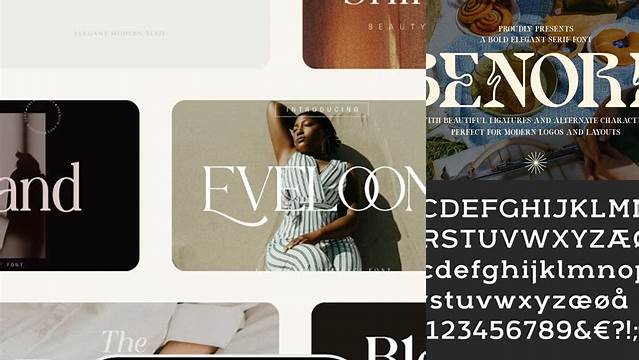
Free Serif Fonts: Download Elegant Fonts Now!
Hey guys! Are you on the hunt for a serif font free download? Well, you've stumbled upon the right place! Serif fonts, known for their classic and sophisticated look, are a staple in the world of design. They're those fonts with the little strokes, or “serifs,” at the ends of the letters – think Times New Roman or Garamond. They add a touch of elegance and readability that's perfect for a wide range of projects, from print to web. In this article, we'll dive deep into everything you need to know about finding and using these amazing fonts, ensuring you can snag a serif font free download without any hassle.
What are Serif Fonts and Why Use Them?
So, what exactly makes a serif font so special? Let's break it down. Serif fonts are characterized by those small decorative strokes at the end of each letter, like tiny feet. These little details aren't just for show; they actually play a big role in readability, especially for body text. The serifs help guide the eye across the page, making it easier to read long blocks of text. This is why you'll often see serif fonts used in books, newspapers, and magazines – they're designed for comfortable reading. But that's not all! Serif fonts also bring a certain level of sophistication and trustworthiness to your design. They're often associated with tradition, authority, and a sense of heritage. This makes them perfect for branding projects where you want to convey these qualities. When choosing a font, it's essential to consider your project's purpose. If you're working on a formal document, a classic serif font might be the perfect choice. If you're designing a website, the use of serif fonts can contribute to the overall aesthetic and usability of the site, enhancing the reading experience for your visitors. Finding a serif font free download gives you tons of options to bring elegance into your work!
But, here's the kicker: using the right serif font can elevate your design game. Imagine a book cover that's bold and beautiful, a website that feels credible and engaging, or a poster that grabs your attention instantly. The right serif font can do all of these things! On the other hand, a poorly chosen font can make your design look cluttered, unprofessional, or even hard to read. That's why it's super important to know your options and understand how different serif fonts can change the tone of your project. This is where our guide on serif font free download really shines; we'll show you how to pick the perfect font for any project.
Where to Find a Reliable Serif Font Free Download
Alright, now the exciting part: where to find a serif font free download? There are tons of websites out there offering free fonts, but not all of them are created equal. You want to make sure you're getting your fonts from a trustworthy source to avoid any nasty surprises, like malware or copyright issues. A good starting point is Google Fonts. Google Fonts is a library of open-source fonts, and it's a goldmine for designers. It's completely free to use, and you can easily download fonts or embed them directly into your website. Another great option is Font Squirrel, a website dedicated to finding high-quality, free fonts. They carefully curate their collection, so you know you're getting a great font when you download from them. They also offer a font identifier tool, which can be super handy if you see a font you like and want to find out what it is. Besides those, you can also check out websites like DaFont or 1001 Fonts. Just be sure to double-check the licensing terms before you download and use any font from these sources. They often have a wide variety of fonts, but some might only be free for personal use. Serif font free download is a good way to level up your projects!
Top Free Serif Fonts to Download Right Now!
Okay, let's get to the good stuff: top serif font free download options! Here are some of the best free serif fonts available, perfect for various design projects. You can find these fonts on the platforms we mentioned above, like Google Fonts and Font Squirrel.
- Lora: This is a well-balanced contemporary serif with a touch of elegance. It's great for body text and headings, making it super versatile for blogs, websites, and print materials. Lora is designed to look good on screens, so it's a solid choice for digital projects.
- Playfair Display: This font is all about the elegance. It's a high-contrast font with a classic look, and it's perfect for headlines, titles, and display text. This font will bring a touch of luxury to your designs. It is best used for headings and titles.
- Roboto Slab: It has a geometric design with a modern feel. It’s a great option for both headlines and body text, making it a flexible choice for different types of projects. It offers excellent readability in various sizes.
- Merriweather: Designed for readability, especially on screens. This font is perfect for long-form content and body text. It's a good all-around choice. It's designed to be legible, so it is an excellent option for readability.
These fonts are not just aesthetically pleasing, they are also designed with functionality in mind, ensuring they work seamlessly across different platforms and applications. You can use these fonts for a wide range of projects – from website design to creating beautiful print materials. Keep in mind that this is just a starting point. There are tons of amazing free serif fonts out there waiting to be discovered, so don't be afraid to explore and experiment! Finding a serif font free download that speaks to your creative vision is just a download away.
Tips for Using Serif Fonts Effectively
Alright, you've got your serif font free download, now what? Knowing how to use your font effectively is just as important as finding the right one. Let's cover some key tips to make your design shine.
- Consider Readability: Always prioritize readability, especially for body text. Make sure the font size is appropriate for the context and that the line height and letter spacing are comfortable for the reader. Testing your design on different devices will help you find the right balance.
Conclusion: Get Your Serif Font Free Download Today!
So, there you have it, folks! Everything you need to know to find and use serif fonts like a pro. We've covered what they are, why they're used, where to find them, and how to use them effectively. Finding the perfect serif font free download is an important step! Whether you're designing a website, creating print materials, or just experimenting with typography, serif fonts are a fantastic tool to add elegance, sophistication, and readability to your work. Go forth and start downloading those amazing free fonts. Your designs will thank you for it!